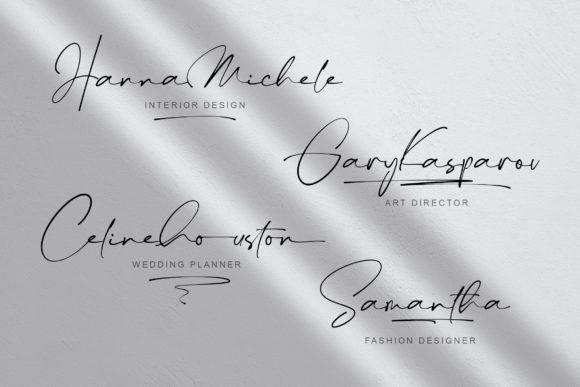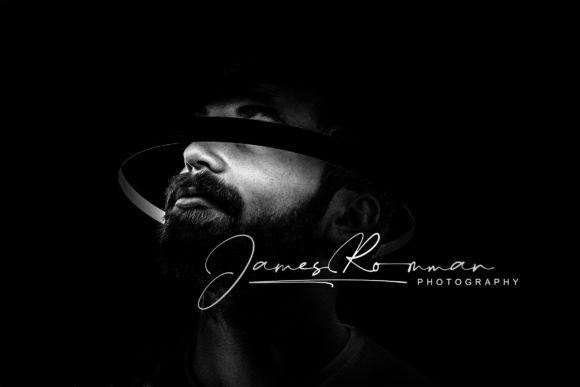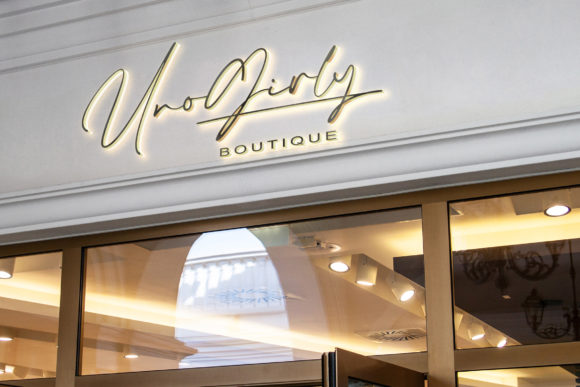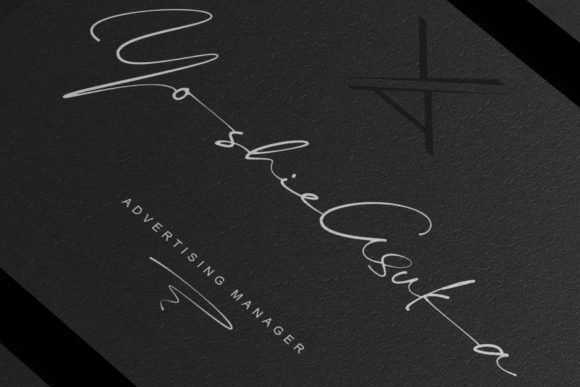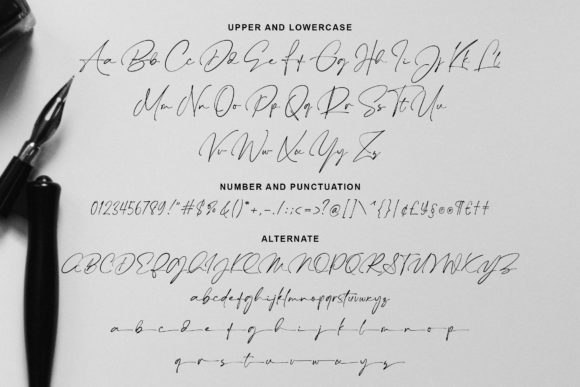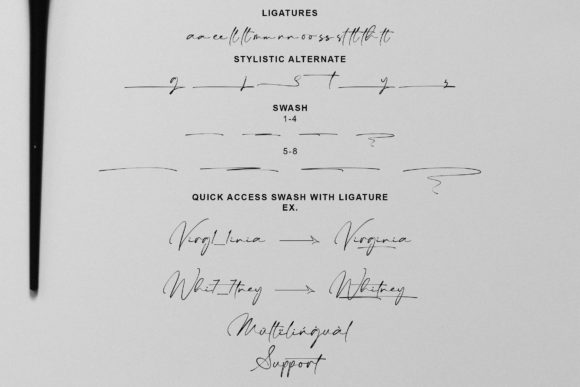
Introducing Dontheus Font: Elevate Your Designs with Elegance
In the world of typography, a font can make or break a design. For designers and crafters looking to add a touch of sophistication and style to their projects, the Dontheus font is an excellent choice. This stunning script font boasts a lovely flow, making it perfect for a wide range of applications, from branding and advertising to crafting and DIY projects.
A Clean, Thin, and Smooth Vibe
Dontheus font is characterized by its clean, thin, and smooth lines, which give it a unique and elegant appearance. The font’s sleek design ensures that it remains legible even at smaller sizes, making it versatile for use in various contexts. Whether you’re working on a logo, a poster, or a digital platform, Dontheus font is sure to make a lasting impression.
One of the standout features of the Dontheus font is its PUA (Private Use Area) encoding. This means that users can access all the glyphs and swashes with ease, allowing for greater flexibility and creativity in design. With PUA encoding, you can unlock the full potential of the Dontheus font and take your designs to the next level.
The Dontheus font is incredibly versatile and can be used in a multitude of design projects. Here are just a few examples:
- Branding and Logo Design: Create a lasting impression with a custom logo that showcases the elegance of the Dontheus font.
- Advertising and Marketing: Use the Dontheus font in your advertising materials, such as brochures, flyers, and social media graphics, to add a touch of sophistication.
- Crafting and DIY Projects: Add a personal touch to your crafting and DIY projects, such as handmade cards, invitations, and scrapbooking pages.
- Digital Design: Use the Dontheus font in your digital designs, including website headers, social media graphics, and email newsletters.
Why Choose Dontheus Font?
With so many fonts available, why choose Dontheus? Here are just a few reasons:
- Unique and Stylish: The Dontheus font offers a unique and stylish alternative to more traditional fonts.
- Elegant and Sophisticated: The font’s clean, thin, and smooth lines give it an elegant and sophisticated appearance.
- Versatile: The Dontheus font can be used in a wide range of design projects, from branding and advertising to crafting and digital design.
- Easy to Use: With PUA encoding, accessing glyphs and swashes is easy, making it simple to get the most out of the font.
Tips for Using Dontheus Font
To get the most out of the Dontheus font, here are a few tips:
- Experiment with Sizes: Don’t be afraid to experiment with different font sizes to find the perfect balance for your design.
- Play with Swashes: Take advantage of the font’s swashes to add a touch of elegance and sophistication to your design.
- Pair with Other Fonts: Experiment with pairing the Dontheus font with other fonts to create a unique and visually appealing design.